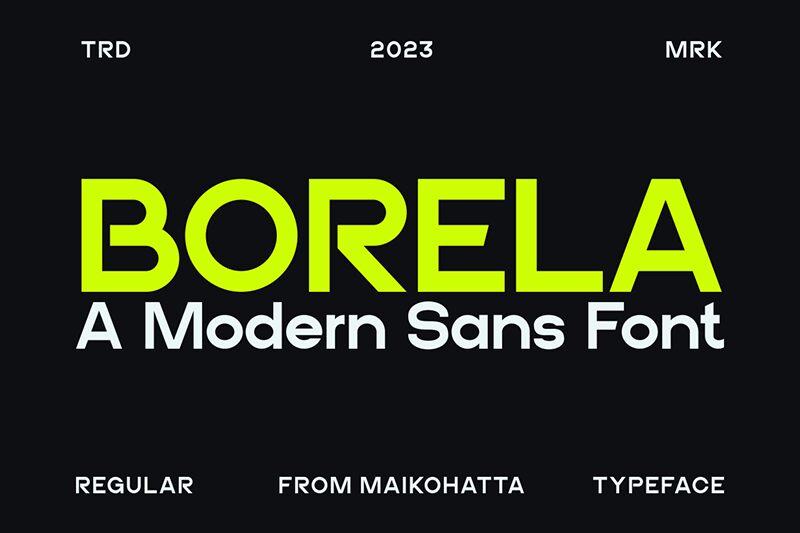
BORELA
Borela font by Gilang Ternadho is a geometric, clean, and modern sans serif typeface. Its structured and minimalistic design communicates a contemporary feel and makes it perfect for projects requiring a strong visual presence. The letters are simple yet eye-catching; elements that make this font one of its kind.
Presented as a free sans serif font, Borela is perfect for logo designs, posters, short picks of magazine/editorial texts, social media posts, advertisements etc. Its versatile look shines also in printed materials such as business cards or even branding packages like stationery items and similar professional undertakings.